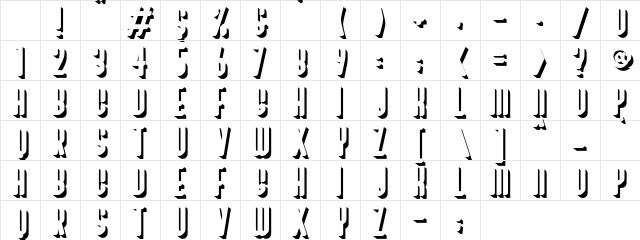
Bivoac Drop Shadow Demo Drop Shadow
Style: Drop Shadow
Designer: Sabrcreative Studio
Design Context for Bivoac Drop Shadow Demo
Bivoac Drop Shadow Demo is built around its visual character rather than neutral utility - its distinctive forms are designed to make an impression at display sizes.